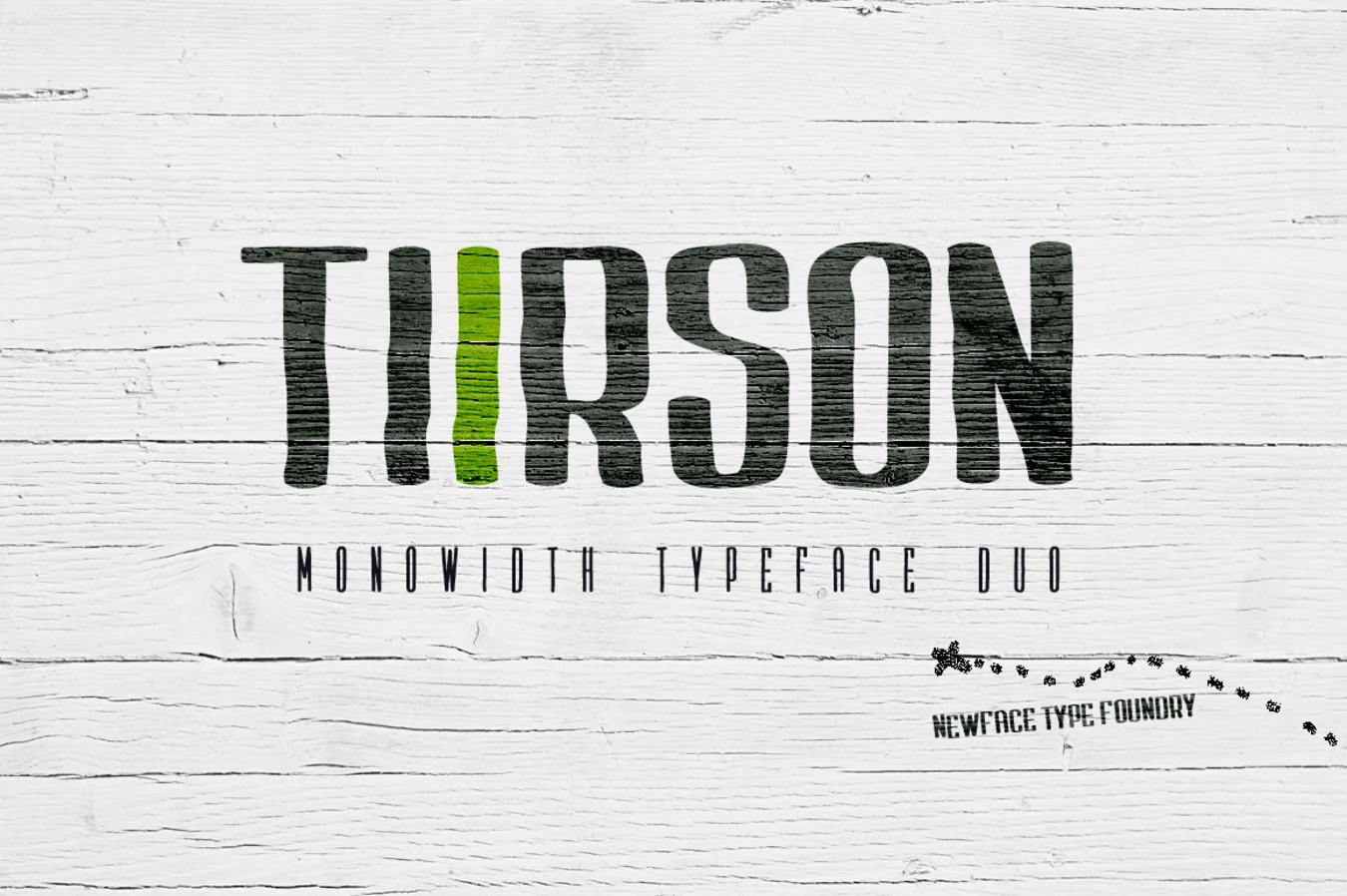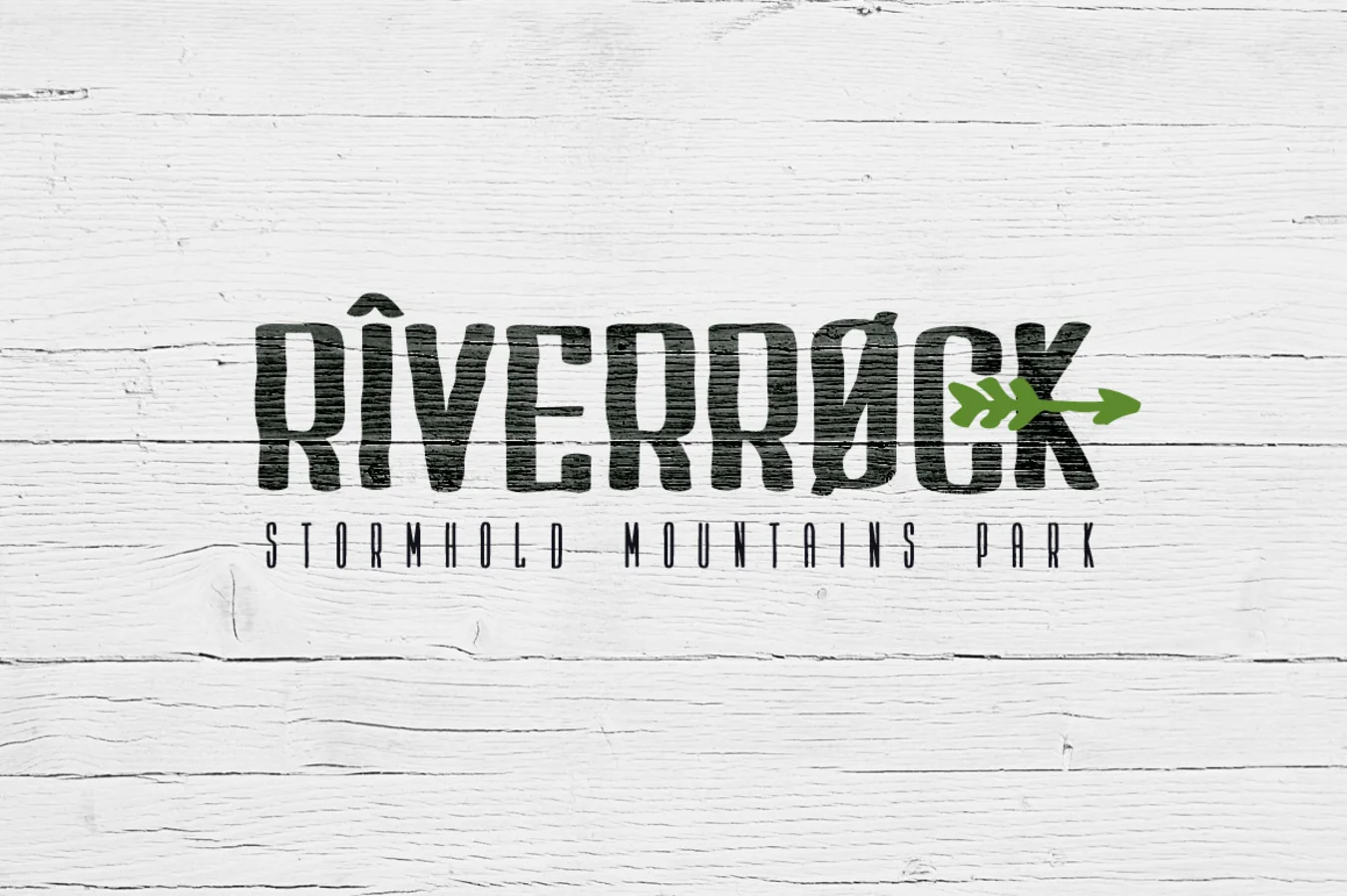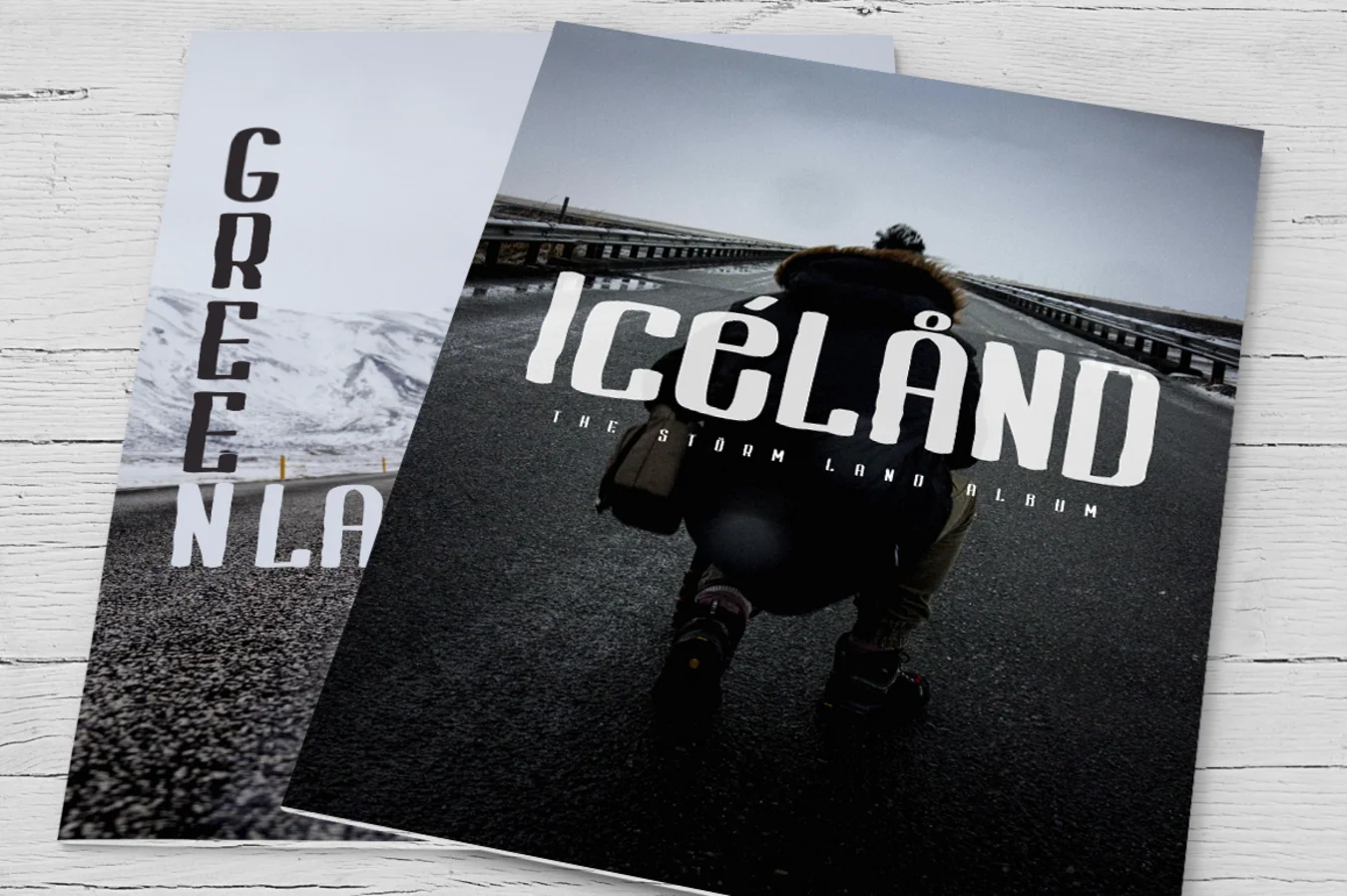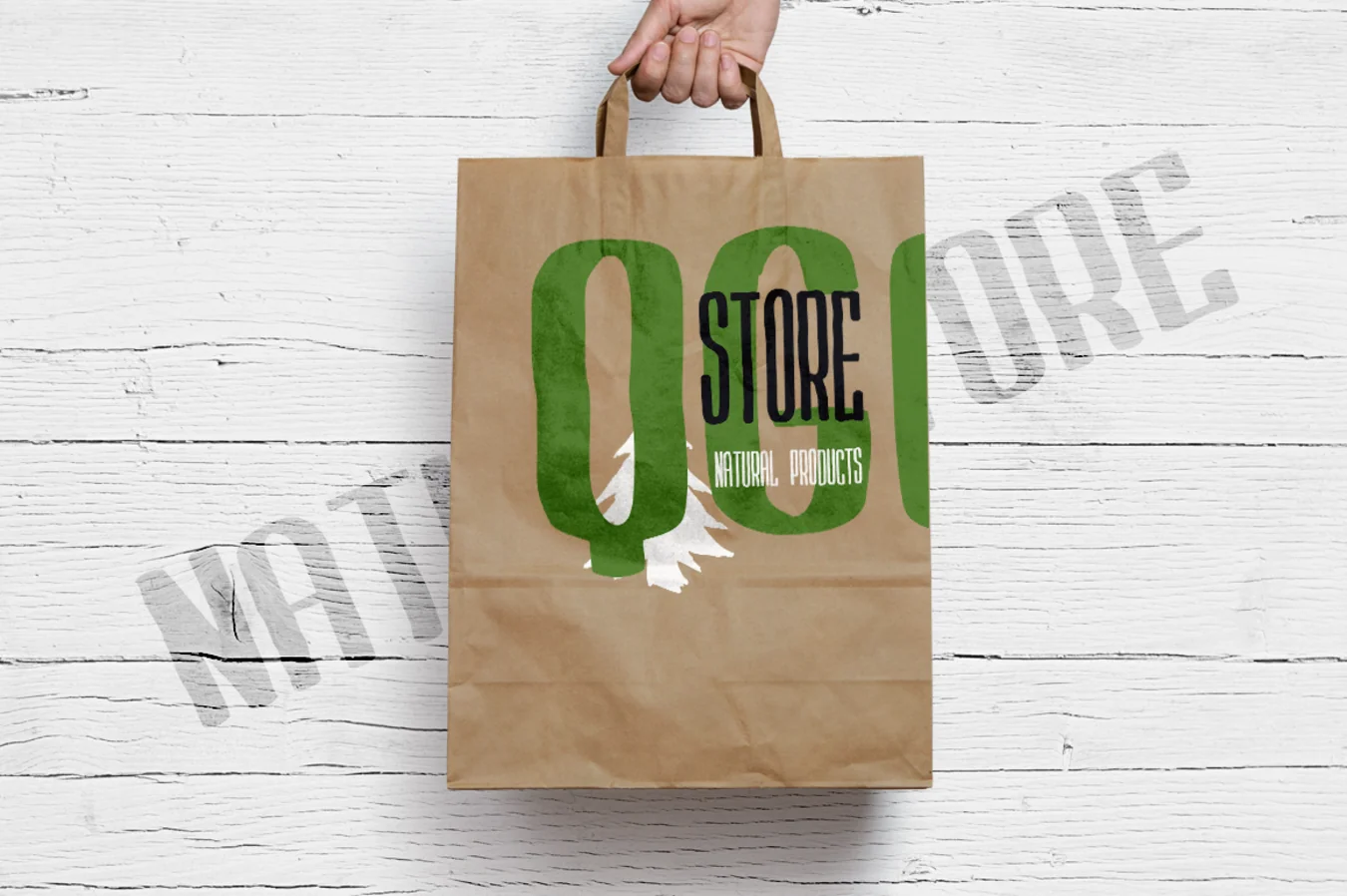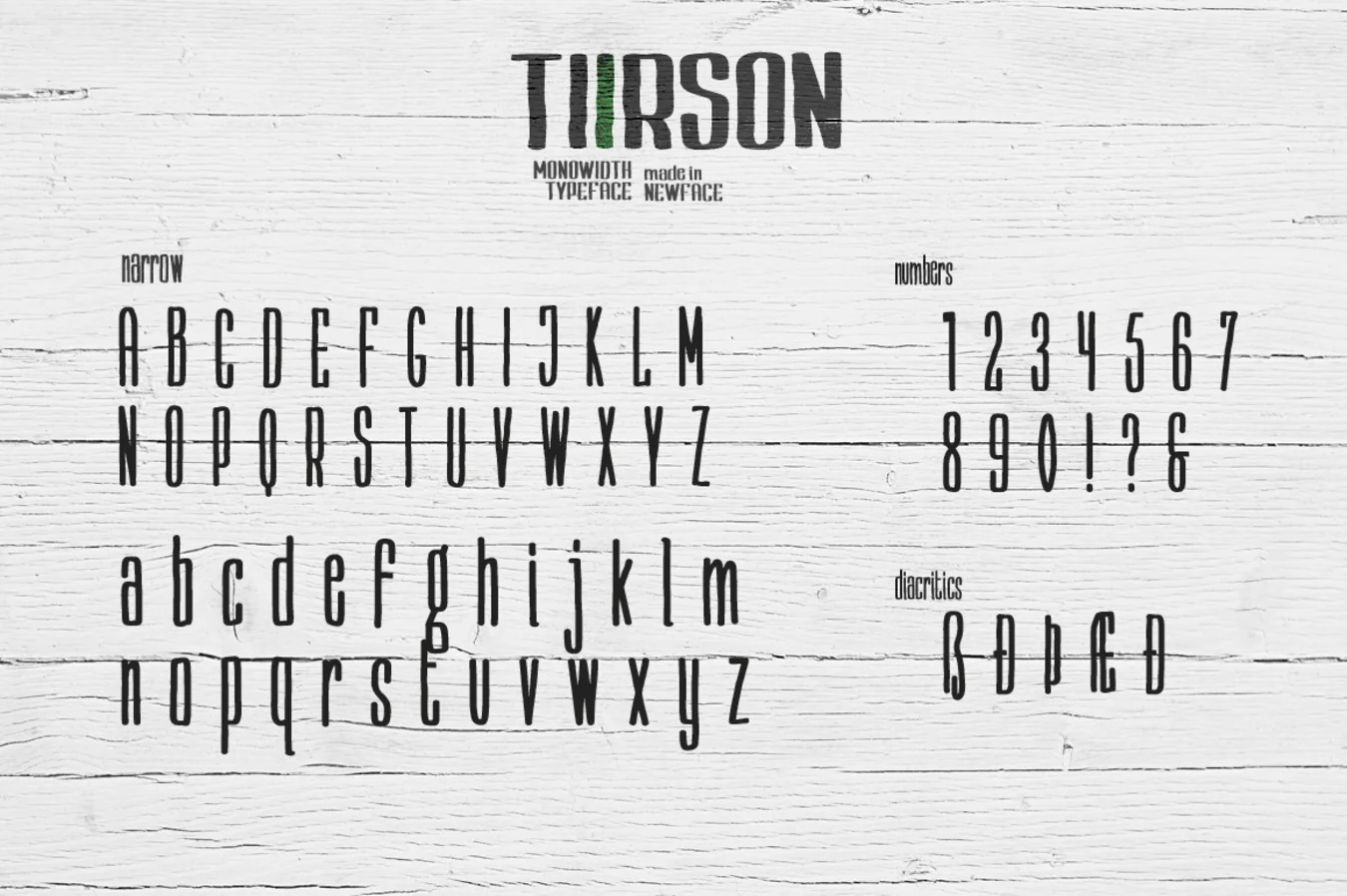
Tiirson Typeface Duo
Genuine monoline handwritten font pair
Brush-style lettering
Paired font set
Multilingual support
Meet Tiirson, an original monowidth handwritten font with a northern character style. Great for headlines, brand work, clothing graphics, and other creative uses. It includes Latin letters, numbers, diacritics, European and Eastern European language support, plus Regular and Narrow versions in OTF and TTF formats.